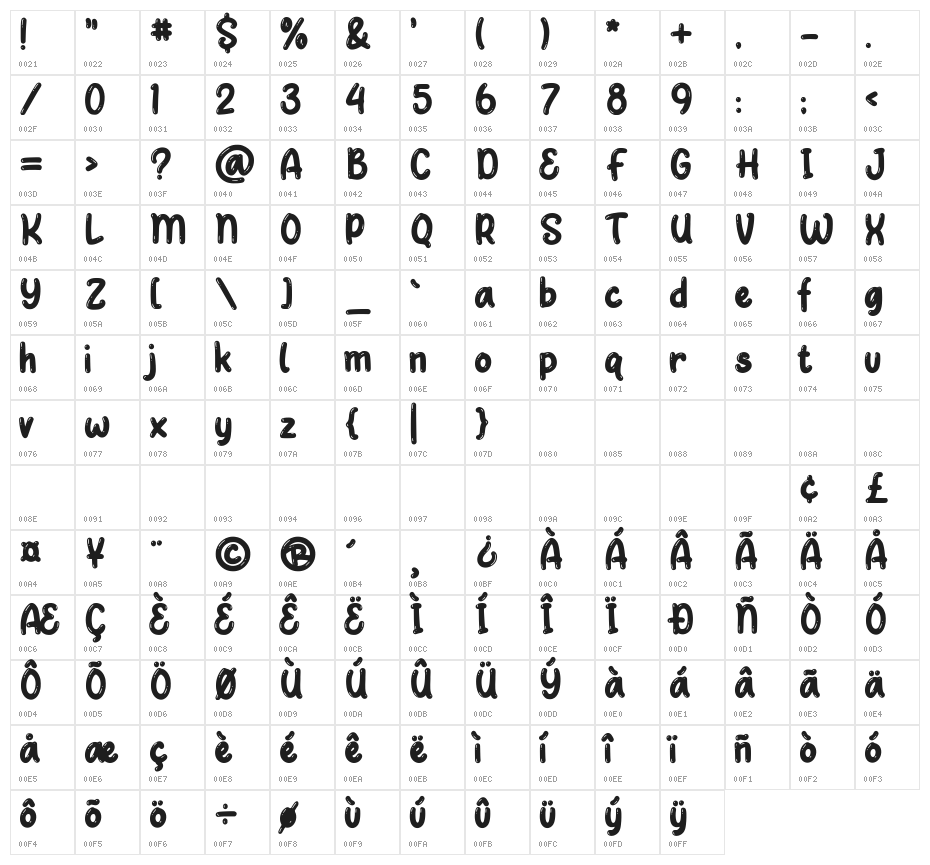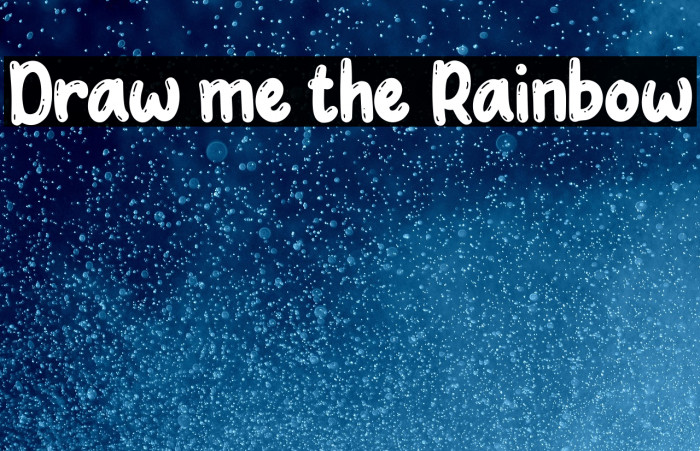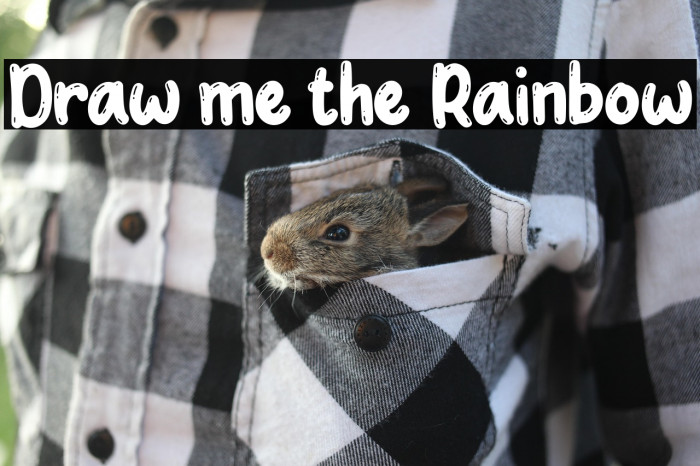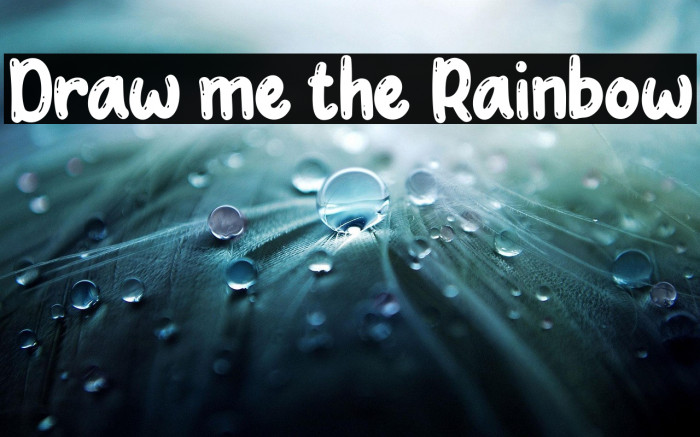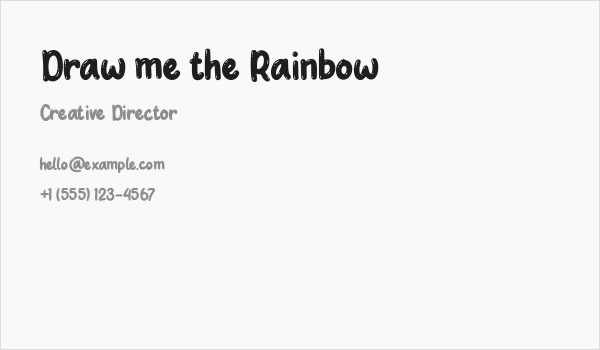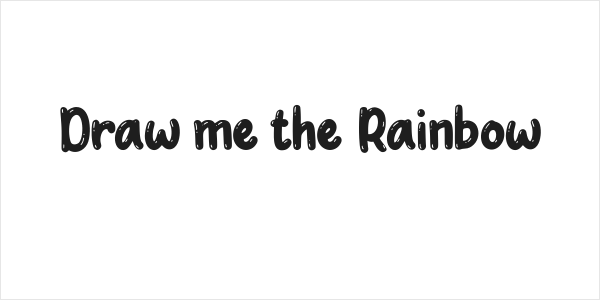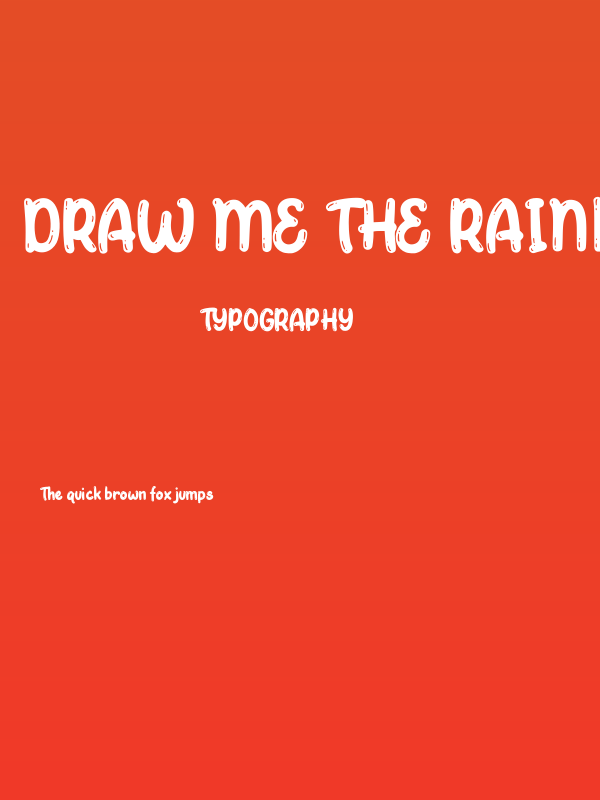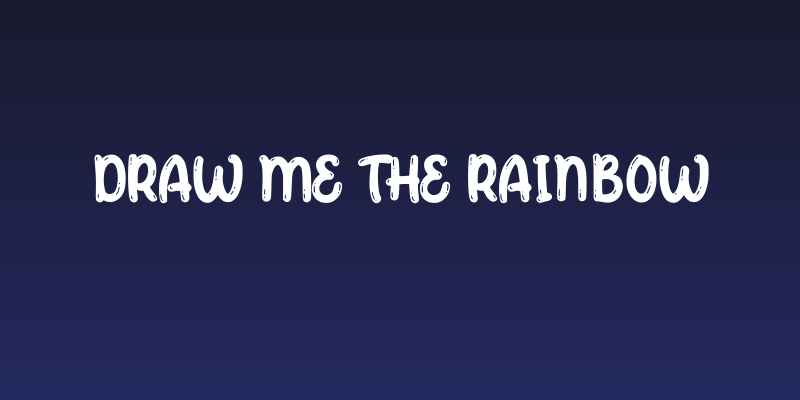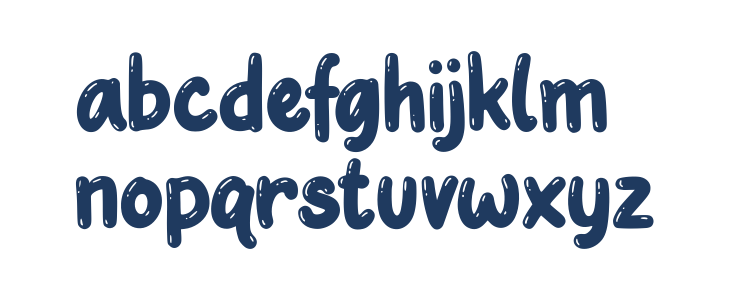
Draw me the Rainbow Font
Draw me the Rainbow Description
This playful and bold font features rounded, bubbly characters with a hand-drawn aesthetic. The letters are thick and have a consistent stroke width, giving them a cartoonish and friendly appearance. The font includes both uppercase and lowercase letters, numbers, and a variety of special characters. Its whimsical style is accentuated by the slight irregularities in the shapes, adding a touch of charm and personality. The font's design is approachable and fun, making it ideal for projects that require a lighthearted and informal tone.